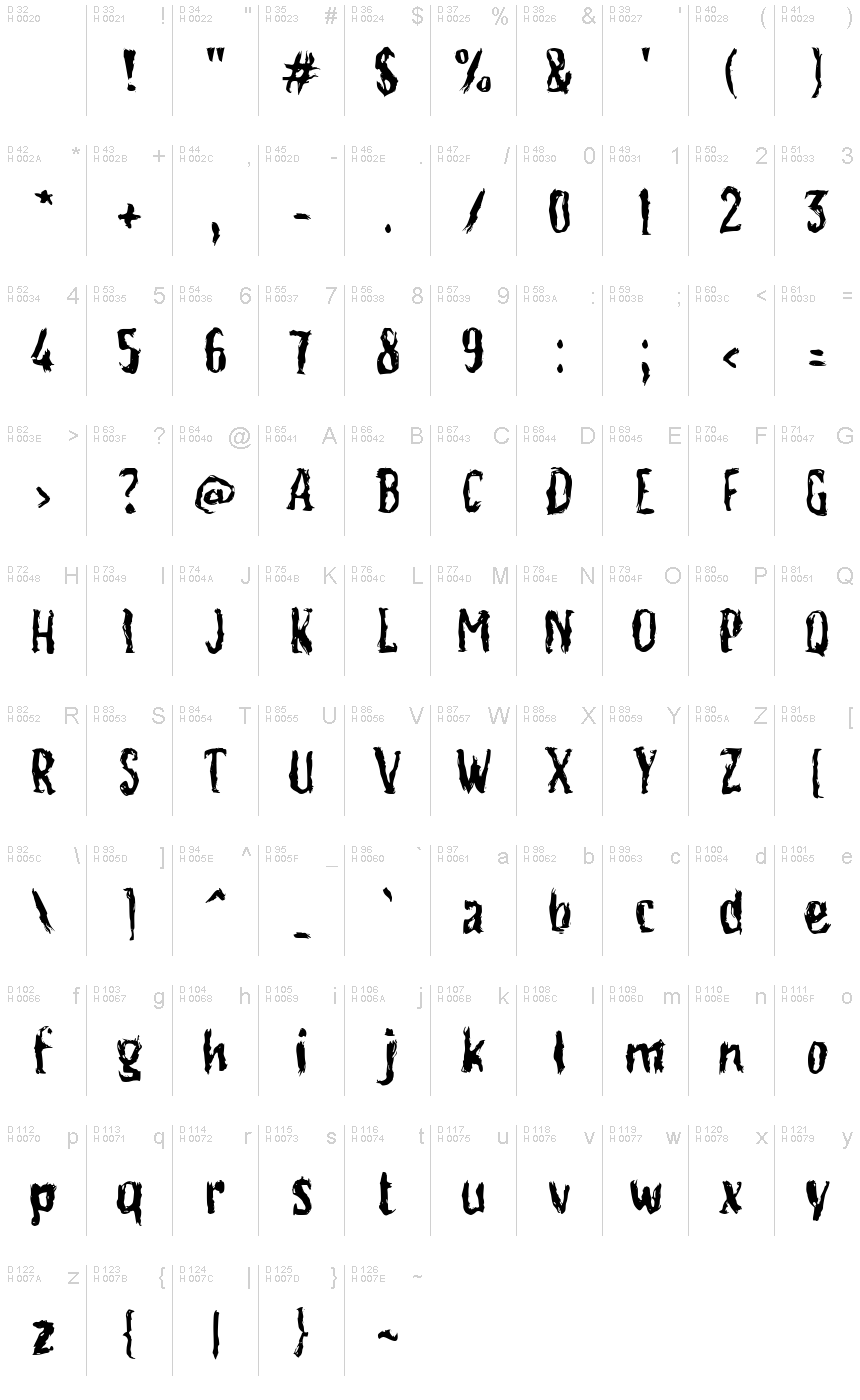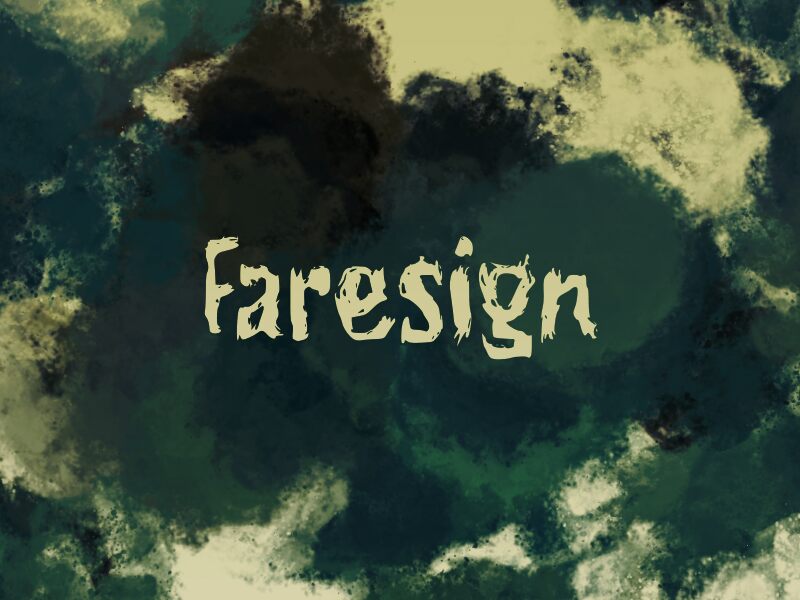
Faresign
Faresign free font by wep displays an irregular, handicraft aesthetic with a distressed effect over its body. The organic feel it gives off is due to its similarity to brush script fonts that are usually irregular and handmade. Noticeable contrasting strokes inject visual dynamism into this condensed typeface. It comprises mixed caps, lowercase letters at uppercase height, no serifs or geometric shapes.
Faresign can be used to display fictional movie titles for horror films as well as books and magazine covers looking for a unique identity. Its letters can decorate blog headers, position company names on logos or design posters, invitation cards, or album cover art.